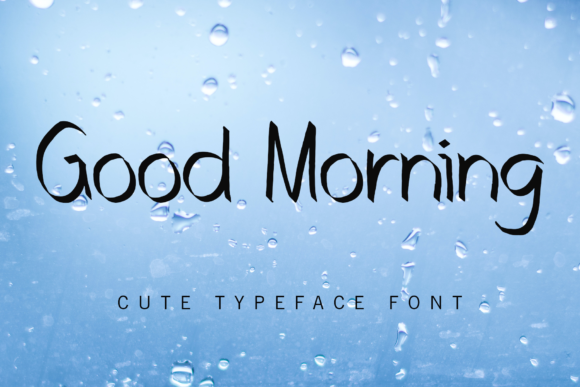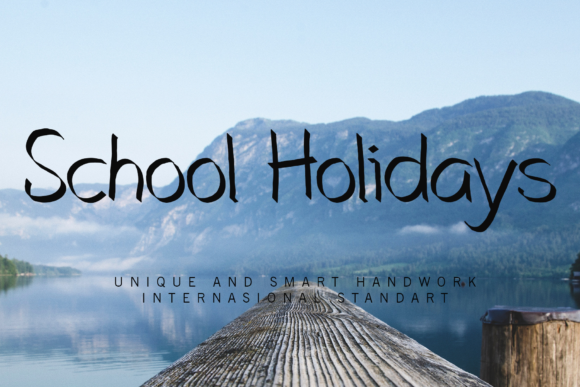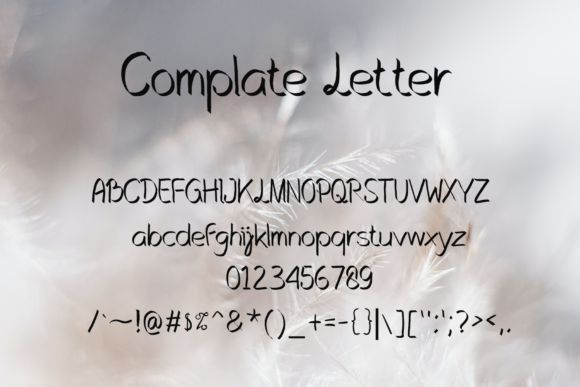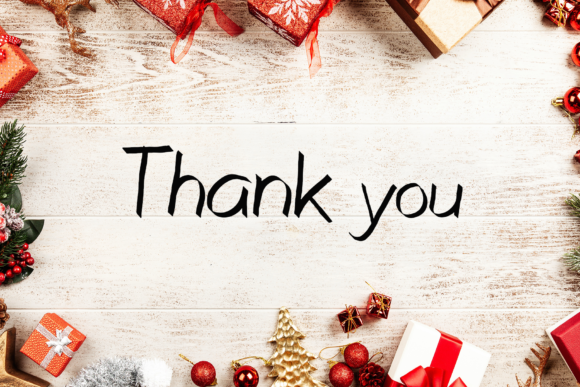
Do you remember the moment when you first started brainstorming ideas for your next big project? The excitement, the anticipation, and the endless possibilities? That’s the magic of creating something from scratch. And for designers, the right font can make all the difference between a good project and a great one.
Enter Camping Font, a modern and flowing handwritten font that’s perfect for logos, t-shirts, banners, invitation cards, and even school books. With its unique and timeless style, this font is sure to capture the attention of your audience and leave a lasting impression. Whether you’re a seasoned designer or just starting out, Camping Font is a valuable addition to your toolkit.
Camping Font Key Features
- Font Family: A unique, hand-drawn font designed to evoke a sense of the great outdoors, perfect for camping and nature-themed projects.
- Character Set: Includes a wide range of characters, including uppercase and lowercase letters, numbers, punctuation marks, and special characters.
- Unique Characteristics: The font features a distressed, hand-drawn look with subtle imperfections, giving it a unique and authentic feel.
Camping Font Review
I recently had the chance to work with Camping Font, and I wanted to share my honest thoughts about it.
- Unique and quirky design: Camping Font is definitely a conversation starter. Its playful, handwritten feel is perfect for outdoor-themed projects or adding a touch of whimsy to your designs.
- High-quality glyphs: The font’s characters are well-designed, with clear lines and smooth connections between letters.
- Good legibility: Despite its handwritten feel, Camping Font is surprisingly easy to read, even at smaller font sizes.
- Limited character set: Camping Font is a bit sparse when it comes to special characters and punctuation marks.
- No italics or bold versions: If you need to emphasize text or create a sense of hierarchy, you’ll need to rely on other fonts.
Overall, I think Camping Font is a great choice for projects that need a playful, outdoor-inspired feel. While it may have some limitations, its unique design and high-quality glyphs make it a great addition to any designer’s toolkit.
The Camping Font is ideal for:
- Camping and outdoor-themed designs.
- Summer and adventure-themed events.
- Outdoor apparel and product branding.
To get the most out of the Camping Font, try:
- Combining it with other outdoor-themed fonts for a unique look.
- Using it in conjunction with outdoor-inspired colors and graphics.
- Experimenting with different font sizes and styles to create visual interest.
Pacifico Font is a beautiful and elegant script font that is perfect for adding a touch of sophistication to your designs. It works well for branding, packaging, and editorial designs. When to use: For designs that require a high-end, luxurious feel.
Comparison to Camping Font: Pacifico Font has a more refined and polished look compared to Camping Font’s rustic feel. It’s ideal for designs where you want to convey a sense of elegance and refinement.
Great Vibes Font is a modern and stylish script font that is perfect for adding a touch of whimsy to your designs. It works well for branding, social media, and marketing materials. When to use: For designs that require a fun and energetic feel.
Comparison to Camping Font: Great Vibes Font has a more playful and youthful feel compared to Camping Font’s rugged look. It’s ideal for designs where you want to convey a sense of excitement and energy.